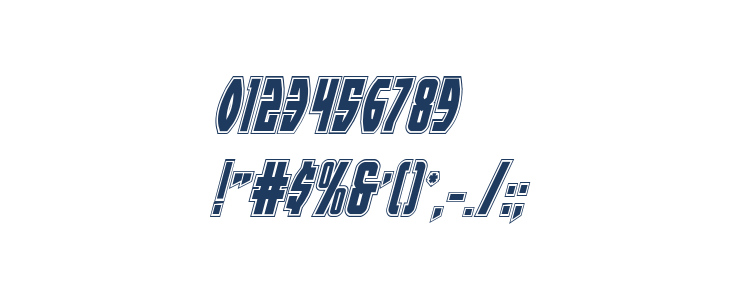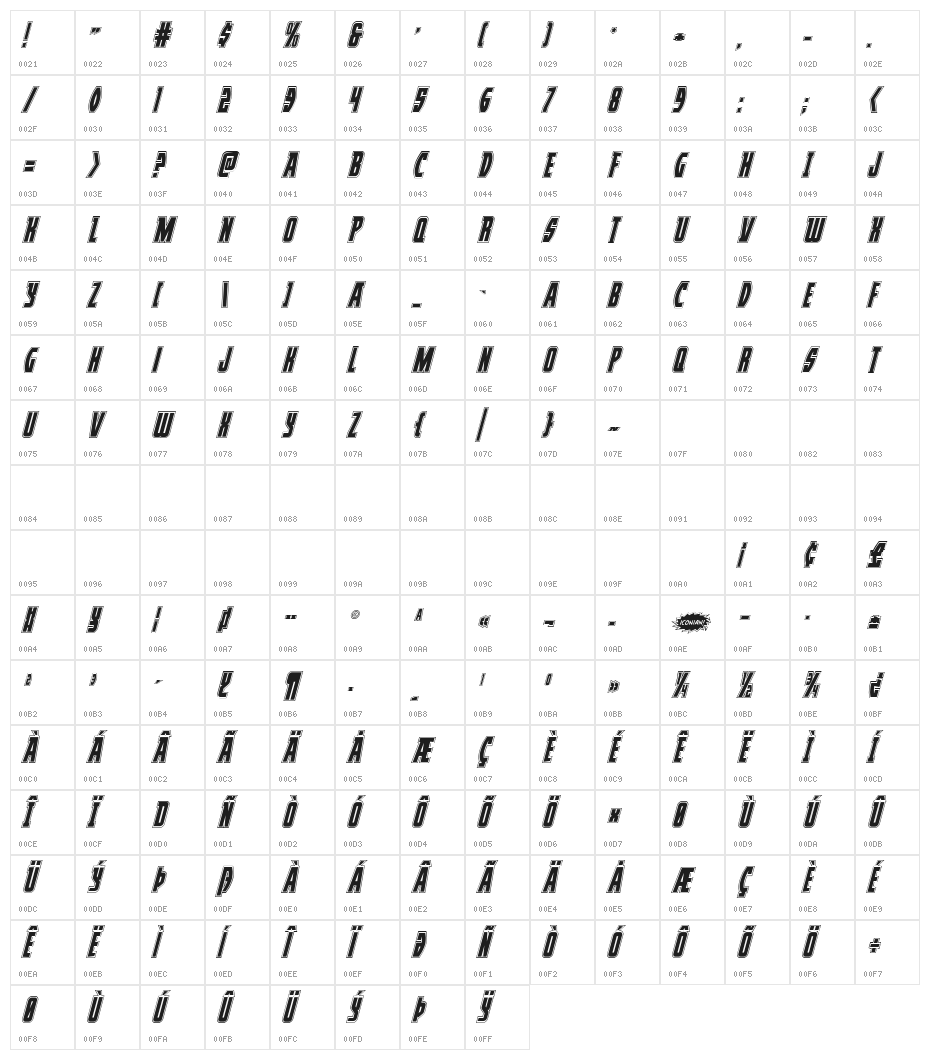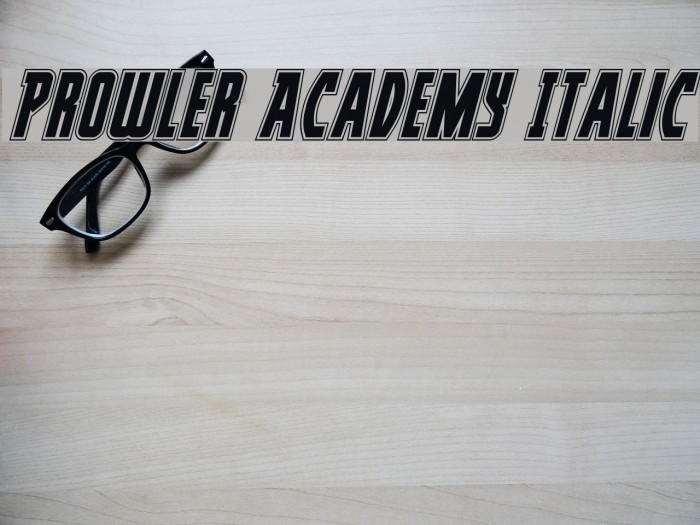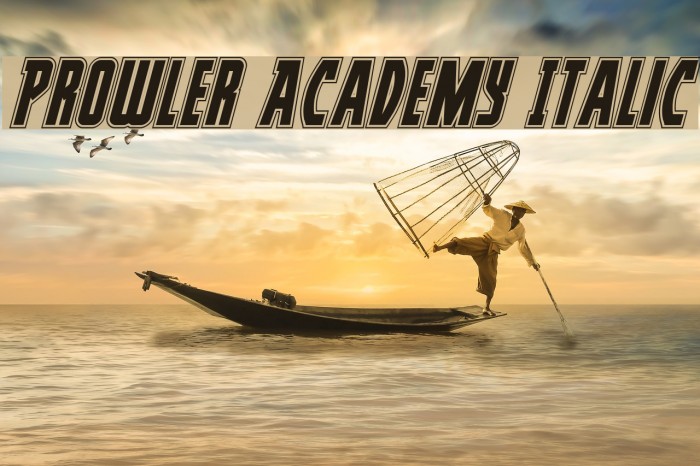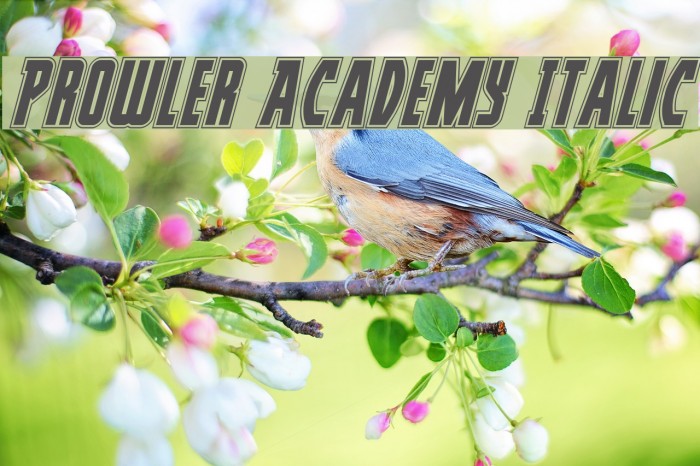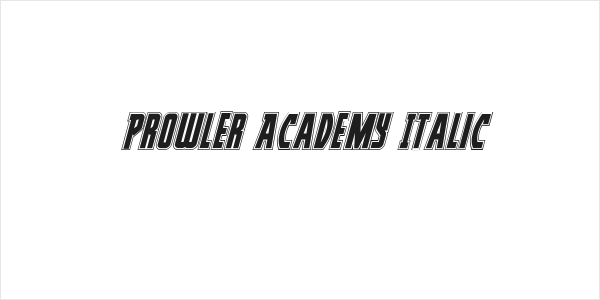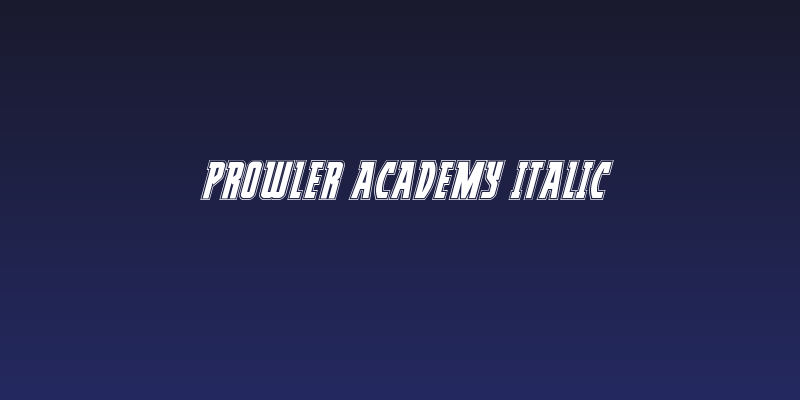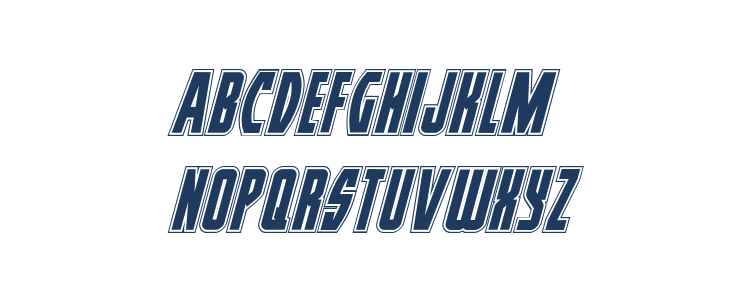
Prowler Academy Italic Font
Prowler Academy Italic Description
This font features a bold, dynamic style with a strong italic slant, giving it a sense of motion and energy. The characters are outlined, adding depth and a three-dimensional effect. The uppercase and lowercase letters maintain a consistent design, with sharp angles and a geometric structure. The numbers and special characters follow the same bold and italicized theme, ensuring uniformity across all glyphs. This font is ideal for projects that require a striking and impactful visual presence.
| Proposed Projects | Perfect for sports branding, action-themed posters, dynamic logos, and eye-catching headlines. |